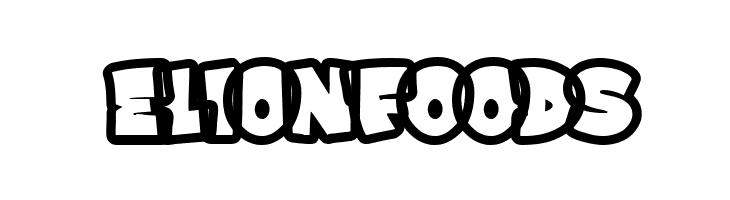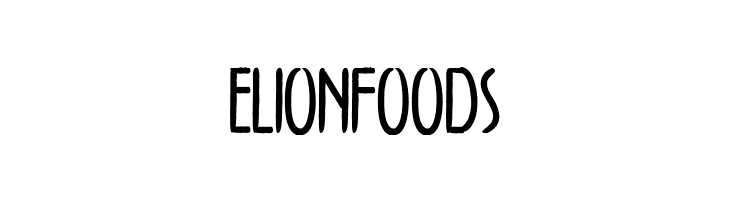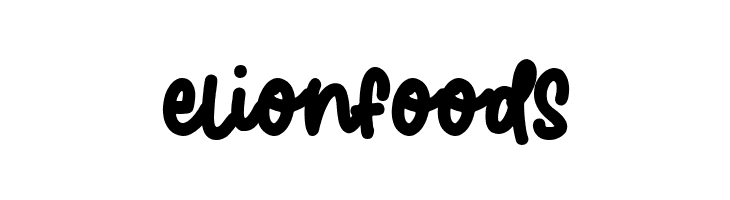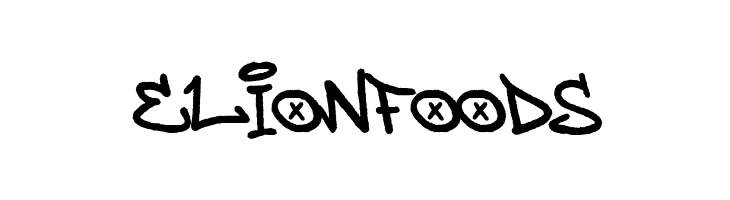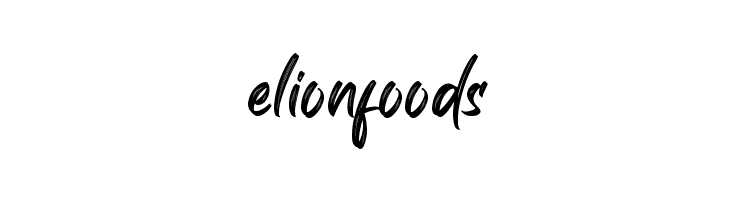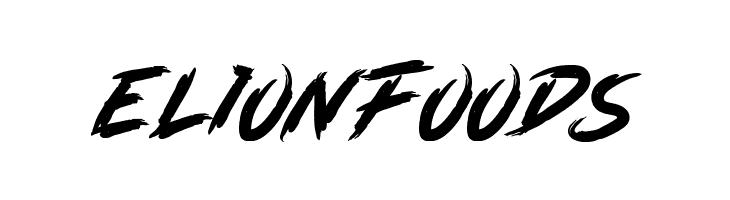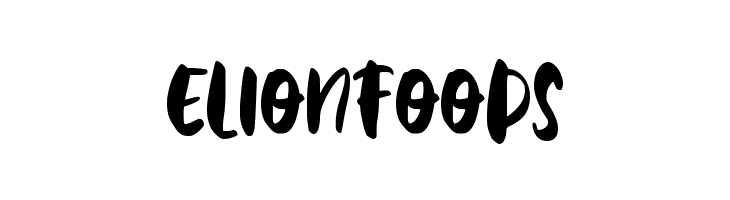
A playful, bold, hand-drawn style font with a whimsical and casual feel.
A bold, playful outline font with a cartoonish and energetic style.
A playful, modern font with rounded, elongated letterforms and consistent stroke width.
A bold, playful, hand-drawn font with rounded, connected characters.
A bold, graffiti-inspired font with dynamic and angular letterforms.
A bold, brush-style font with a dynamic, handwritten appearance.
A bold, brush-stroke font with dynamic and artistic flair.
A bold, graffiti-inspired font with dynamic and artistic strokes.
A bold, dynamic brush script with expressive strokes and a hand-painted look.
A bold, playful handwritten font with brush-like strokes.